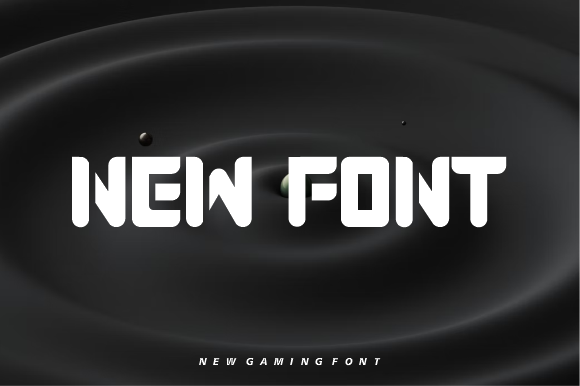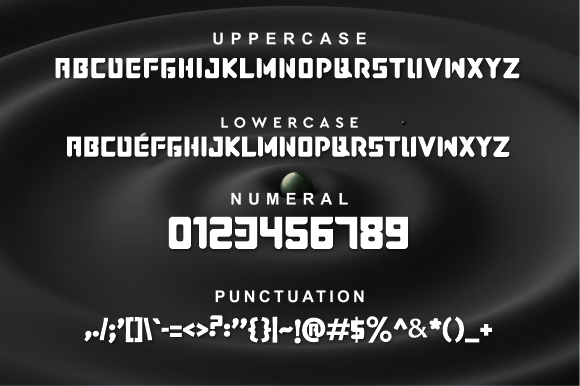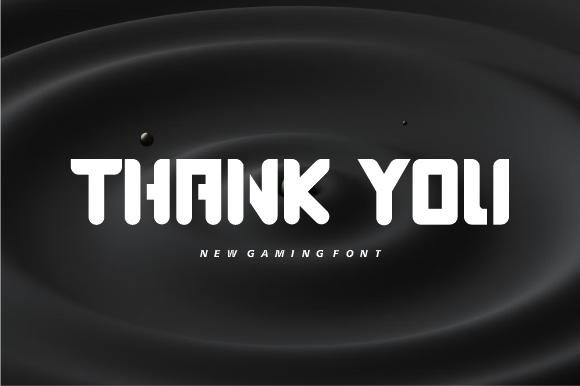
Introduction to Megaron Font
Megaron is a bold and authentic sans serif font suitable for any branding project like logos, t-shirt printing, export, etc.
It looks outstanding in a wide range of contexts .
Key Features of Megaron Font
Why Choose Megaron Font?
Megaron Font offers exceptional quality and versatility, making it a valuable addition to your design toolkit. Whether you’re creating for personal projects or commercial use, Megaron Font delivers professional results.